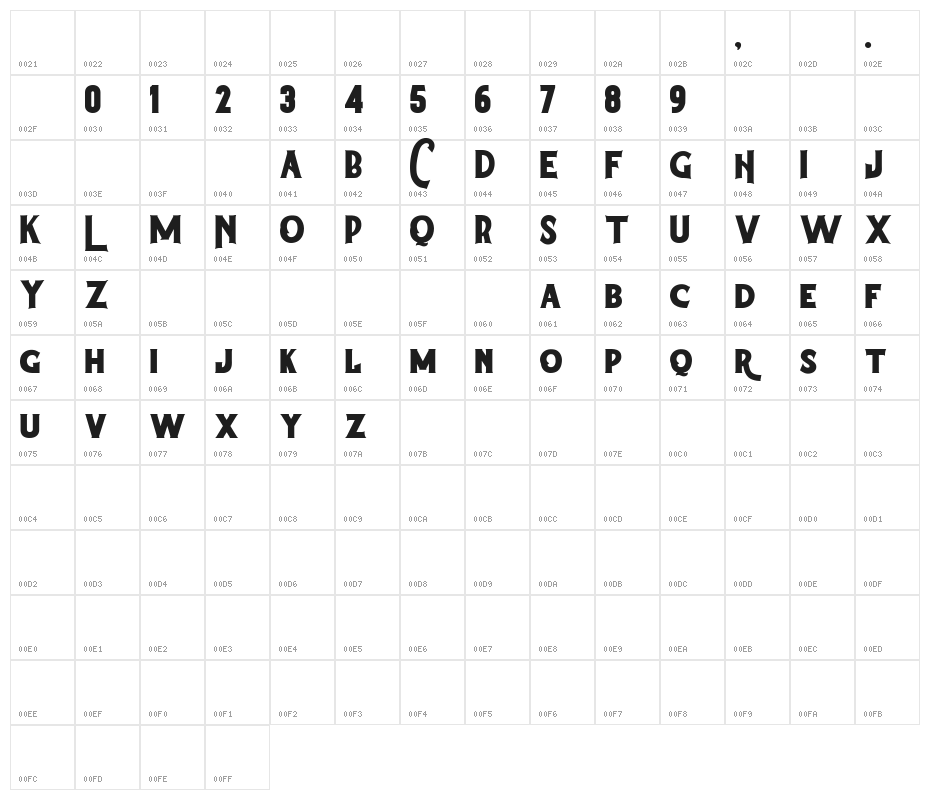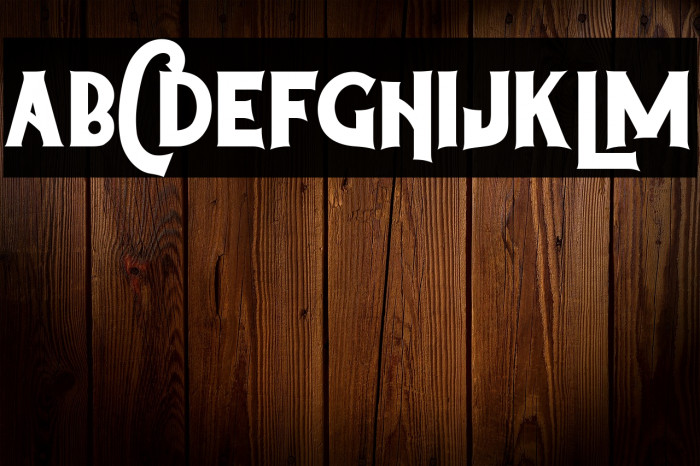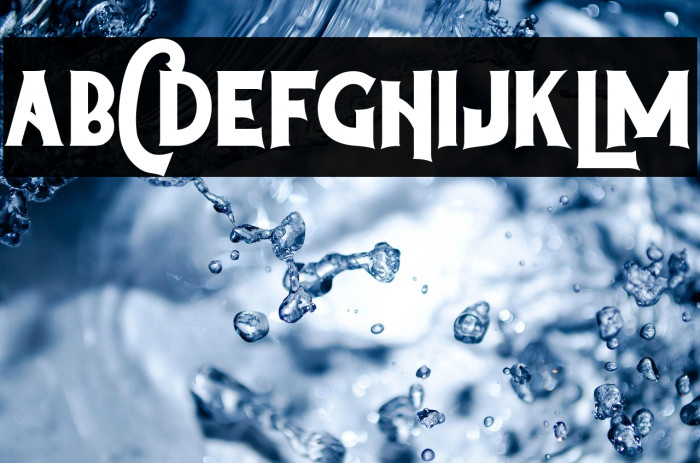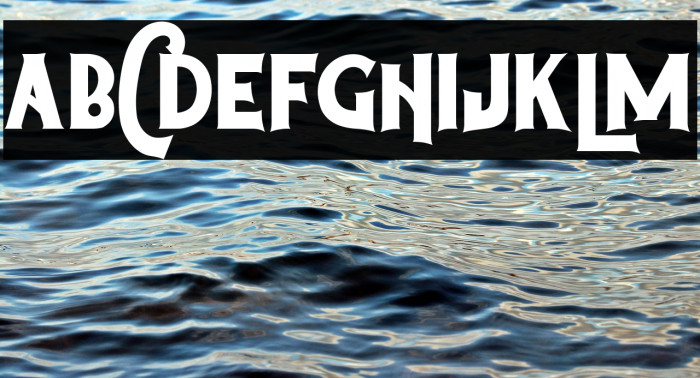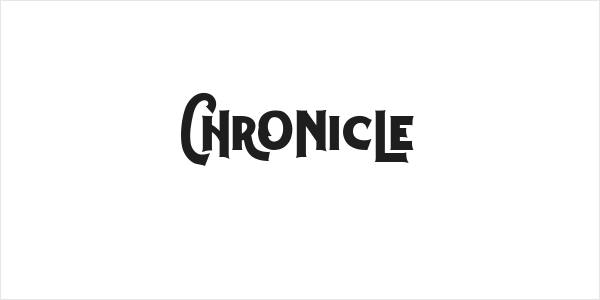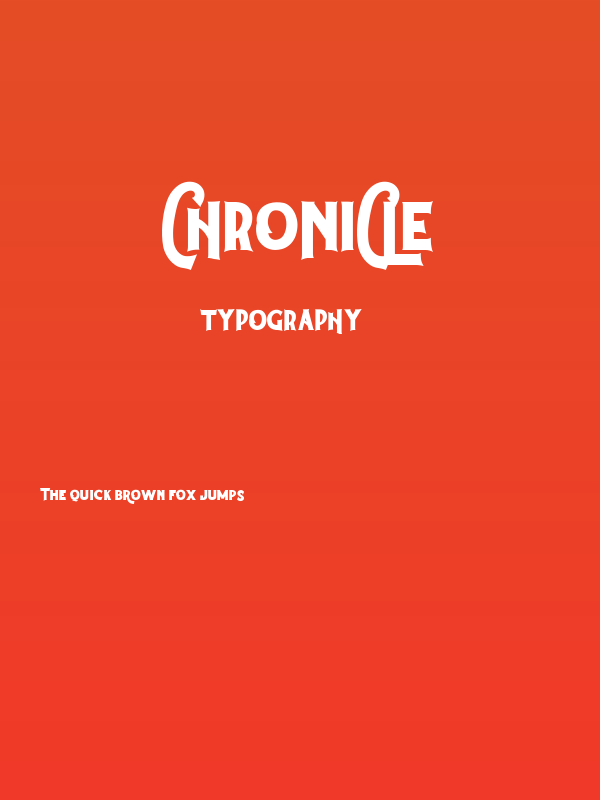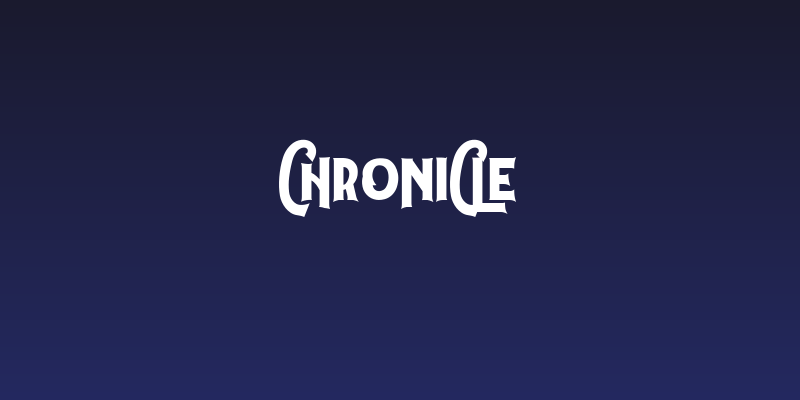
CHrONicLe Font
CHrONicLe Description
This font features a bold and striking design with a strong presence. The uppercase letters are characterized by thick, angular strokes and a slightly condensed form, giving them a robust and commanding appearance. The lowercase letters maintain a similar style, ensuring consistency across the typeface. The numerals are equally bold, with a uniform stroke weight that complements the letters. The font's unique style is further accentuated by its decorative elements, such as the curved tail on the letter 'Q' and the distinctive shape of the 'R'. Overall, this font exudes a sense of strength and authority, making it ideal for impactful designs.
Proposed ProjectsIdeal for headlines, posters, branding, and any project requiring a bold, impactful typeface.